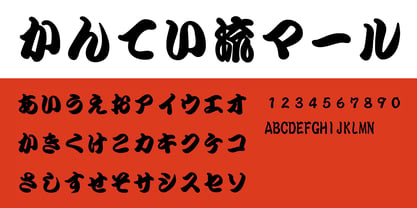
MRKanteiryu
by MAAR-sha
This font is based on the book "Display Typeface Collection: Shin Kanteiryu" written by Masaharu Harada and published by Mahl Co., Ltd.
Kanteiryu characters originated from Edo-period kabuki, and this font retains the traditional essence of Kanteiryu while incorporating modern adjustments to improve readability for today’s audiences. Widely admired for use in signage and advertising, this bold and distinctive typeface commands attention even from a distance.